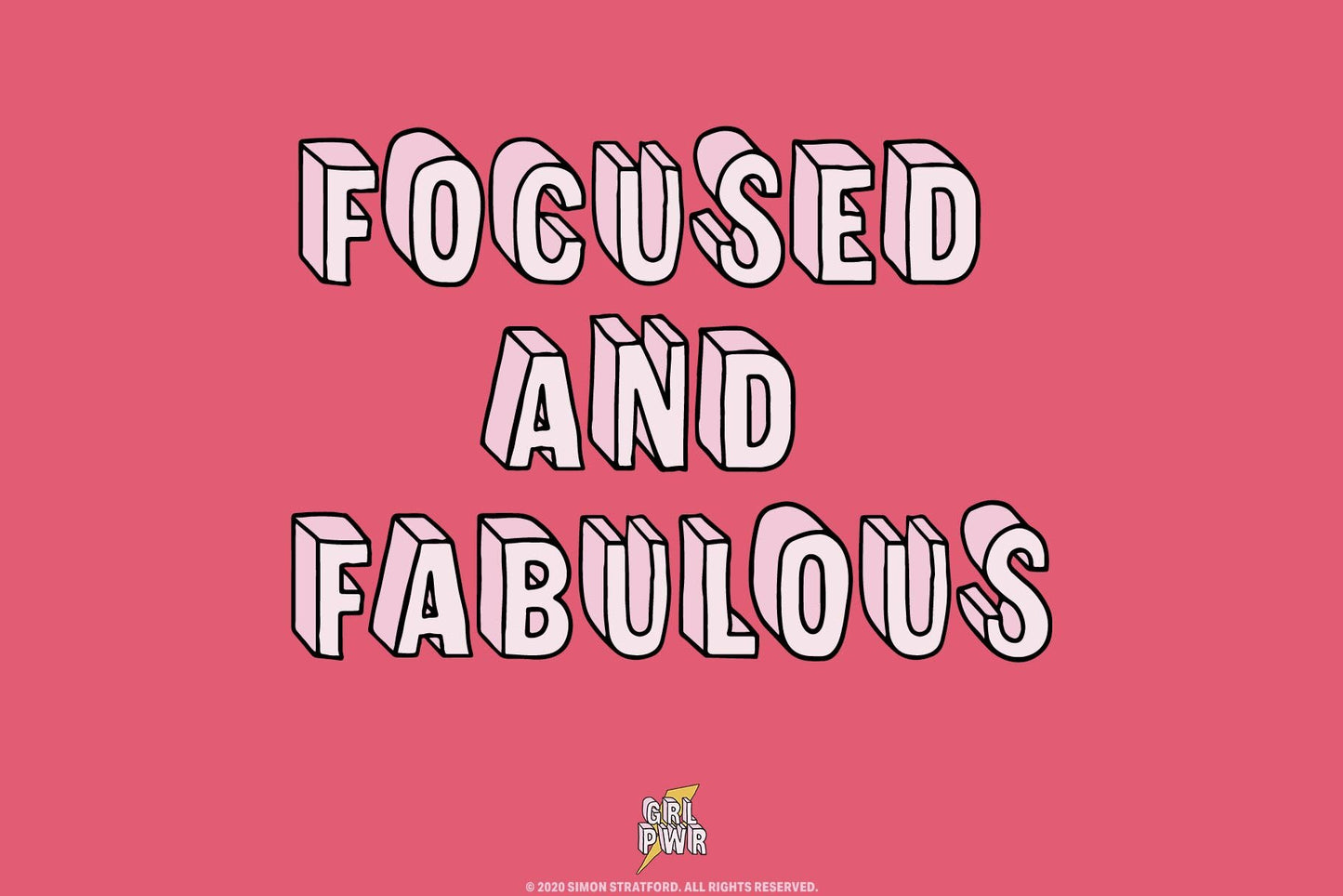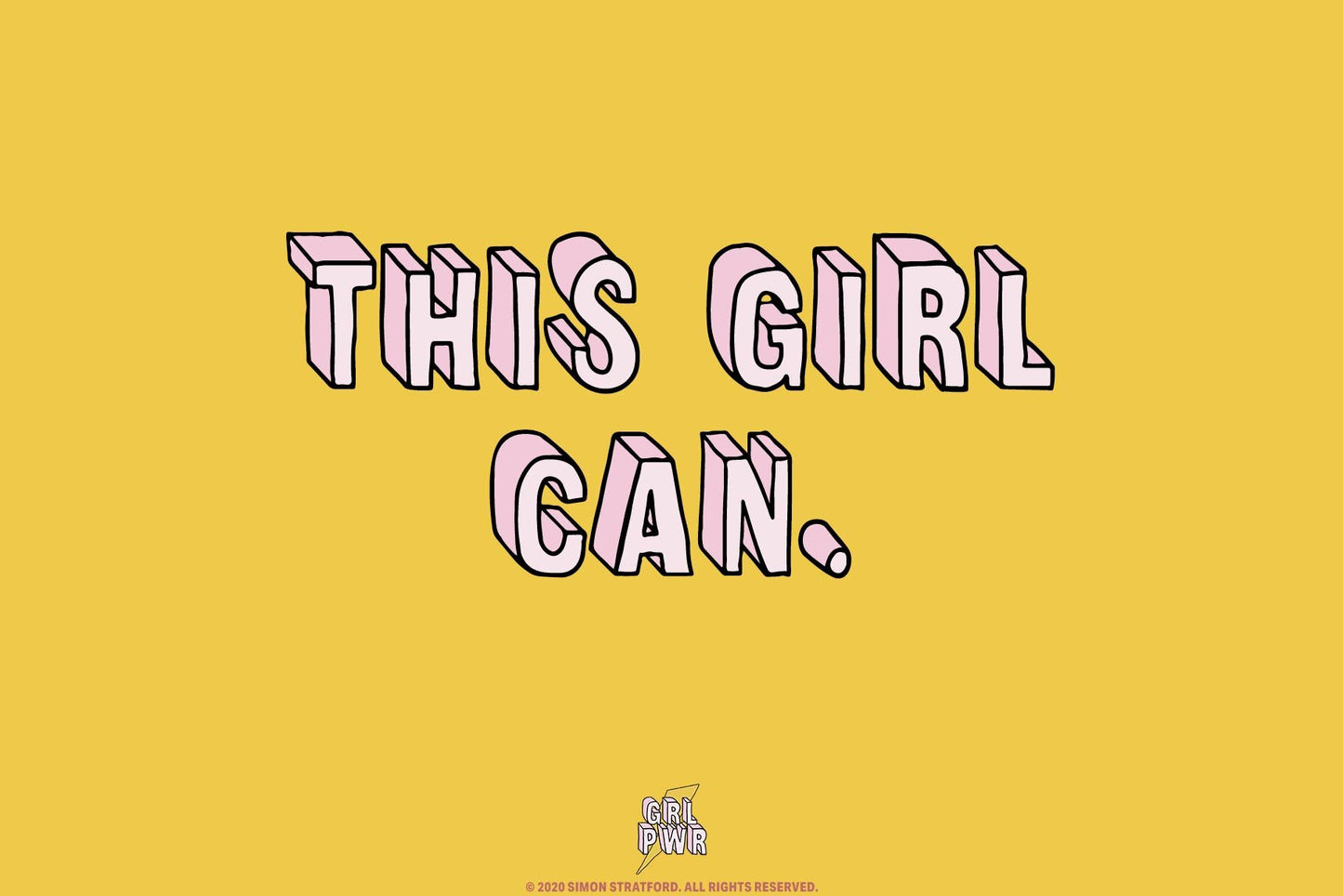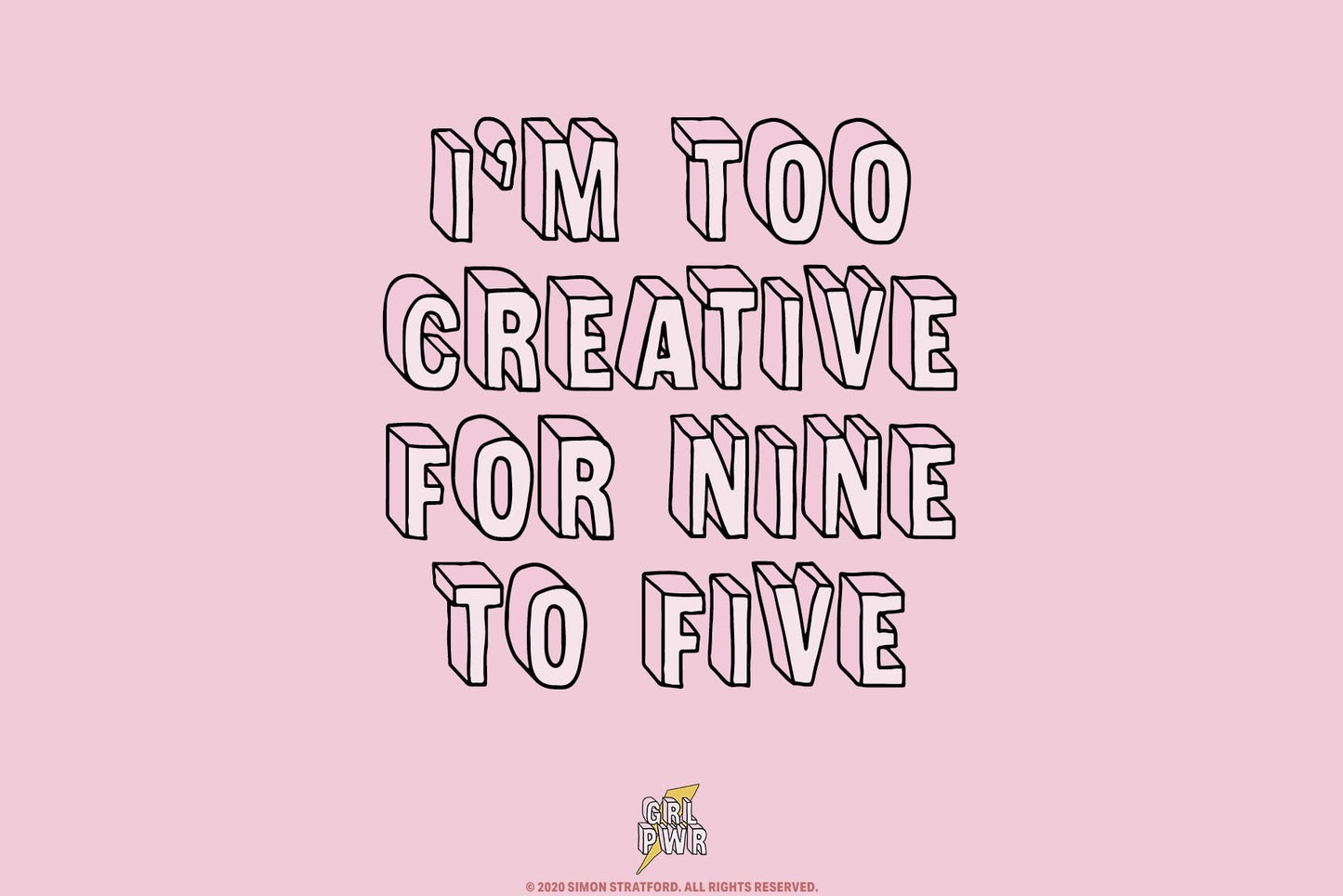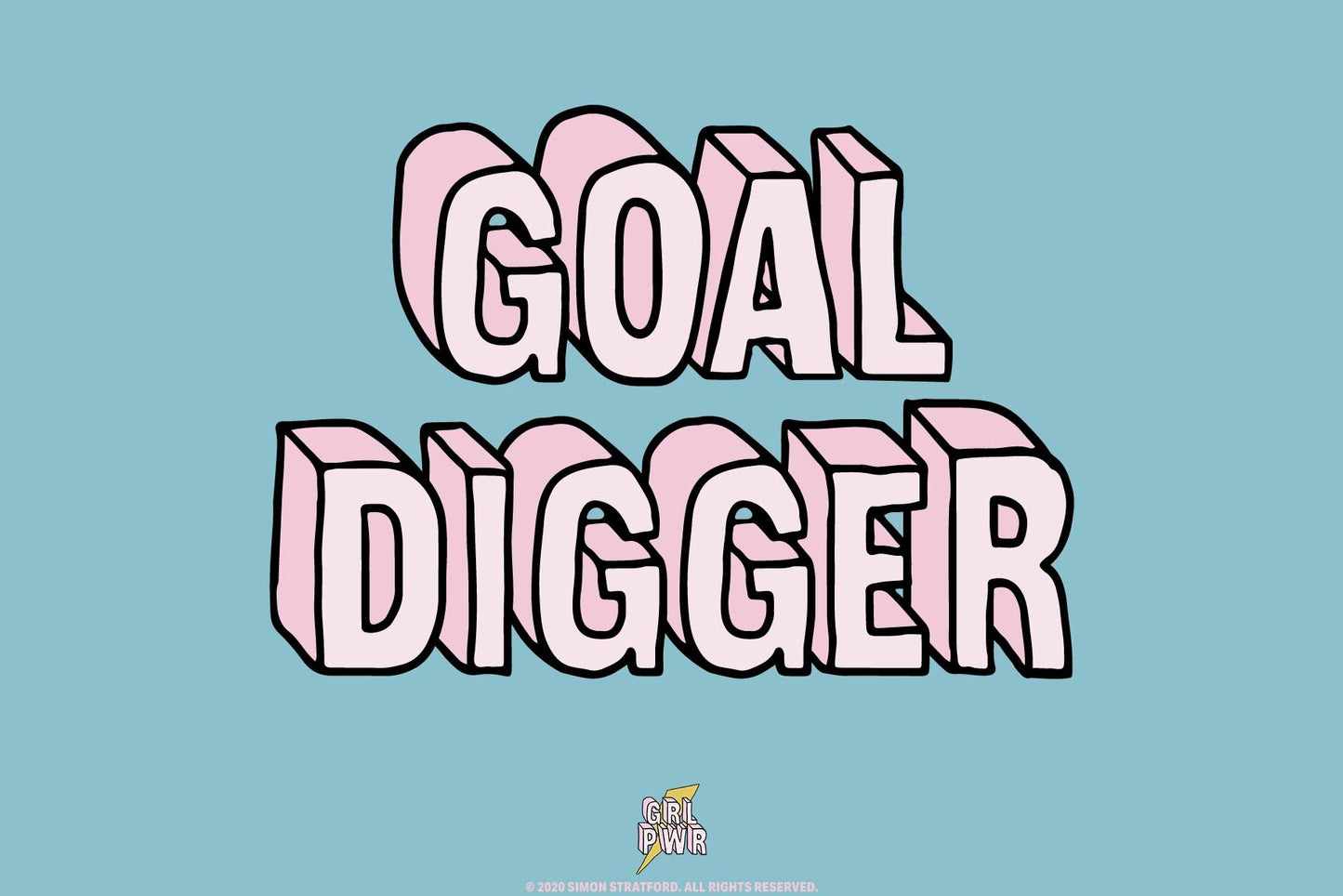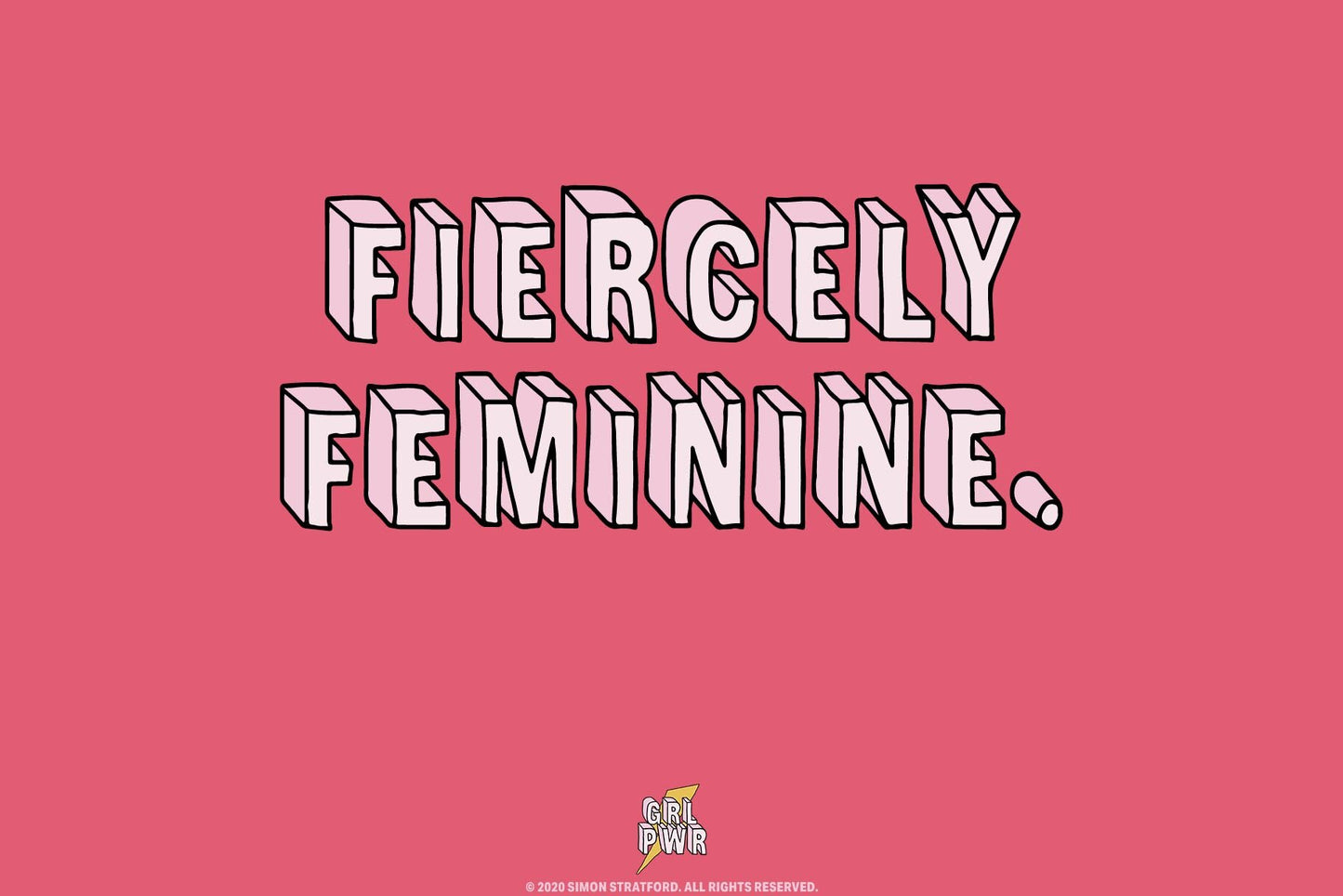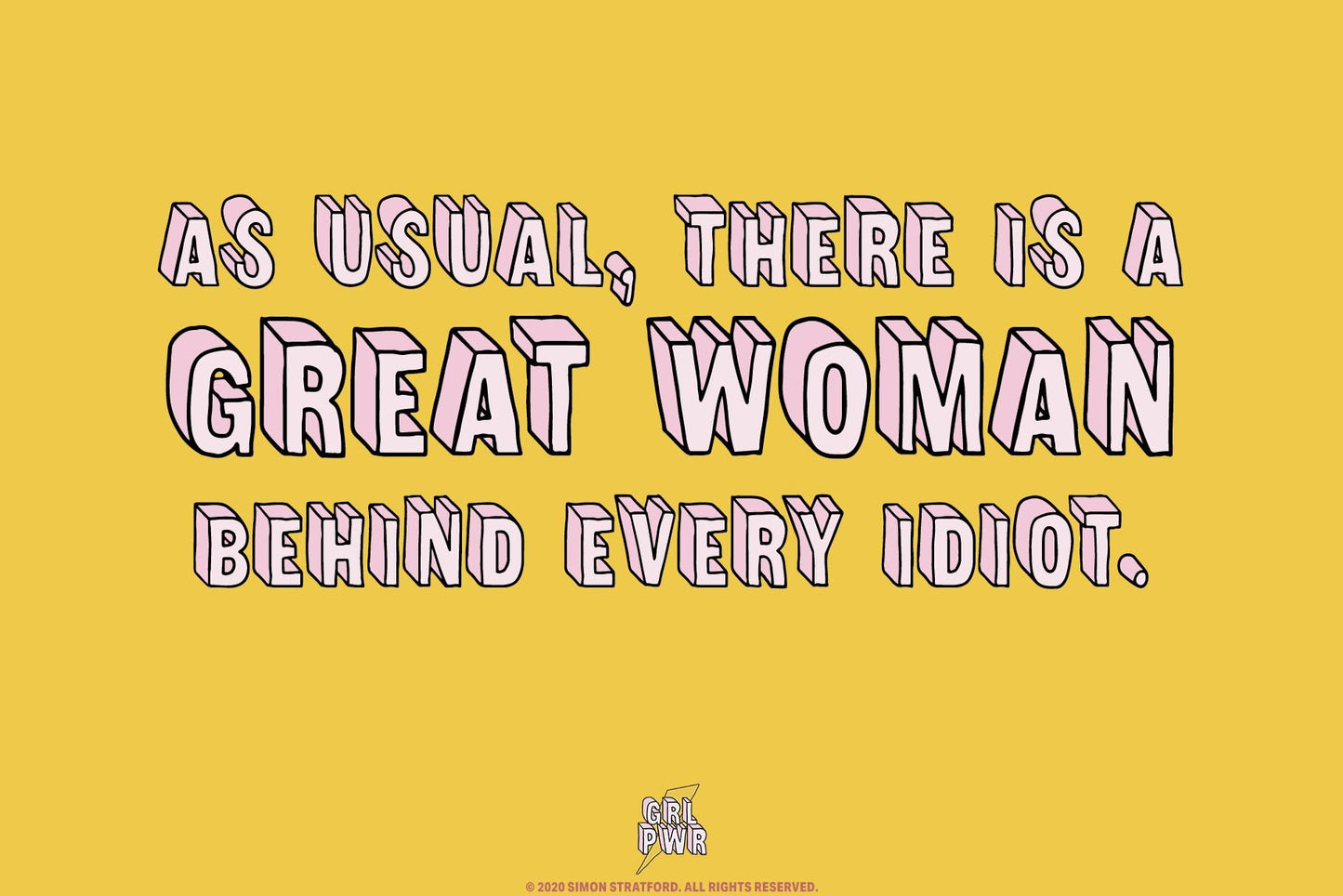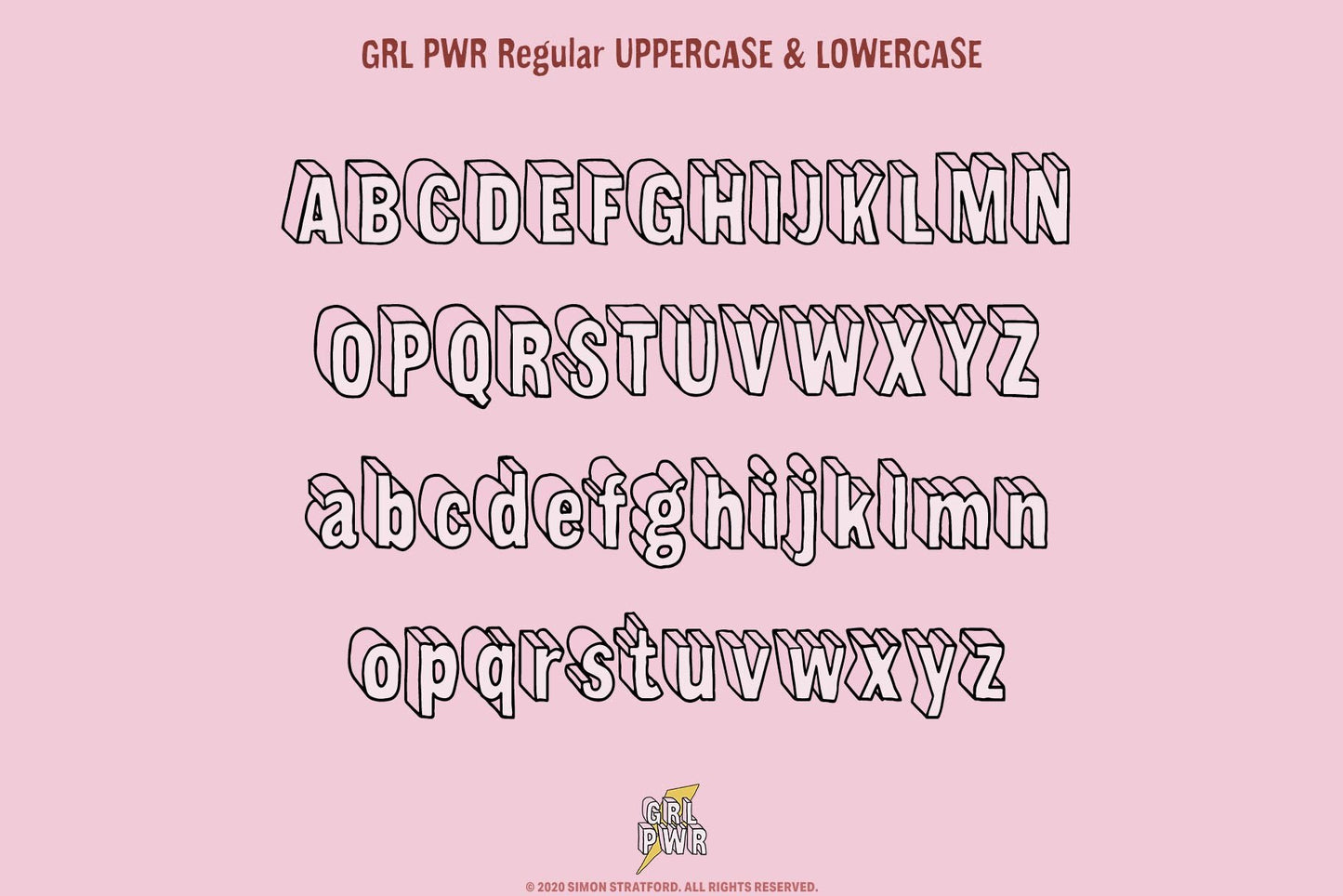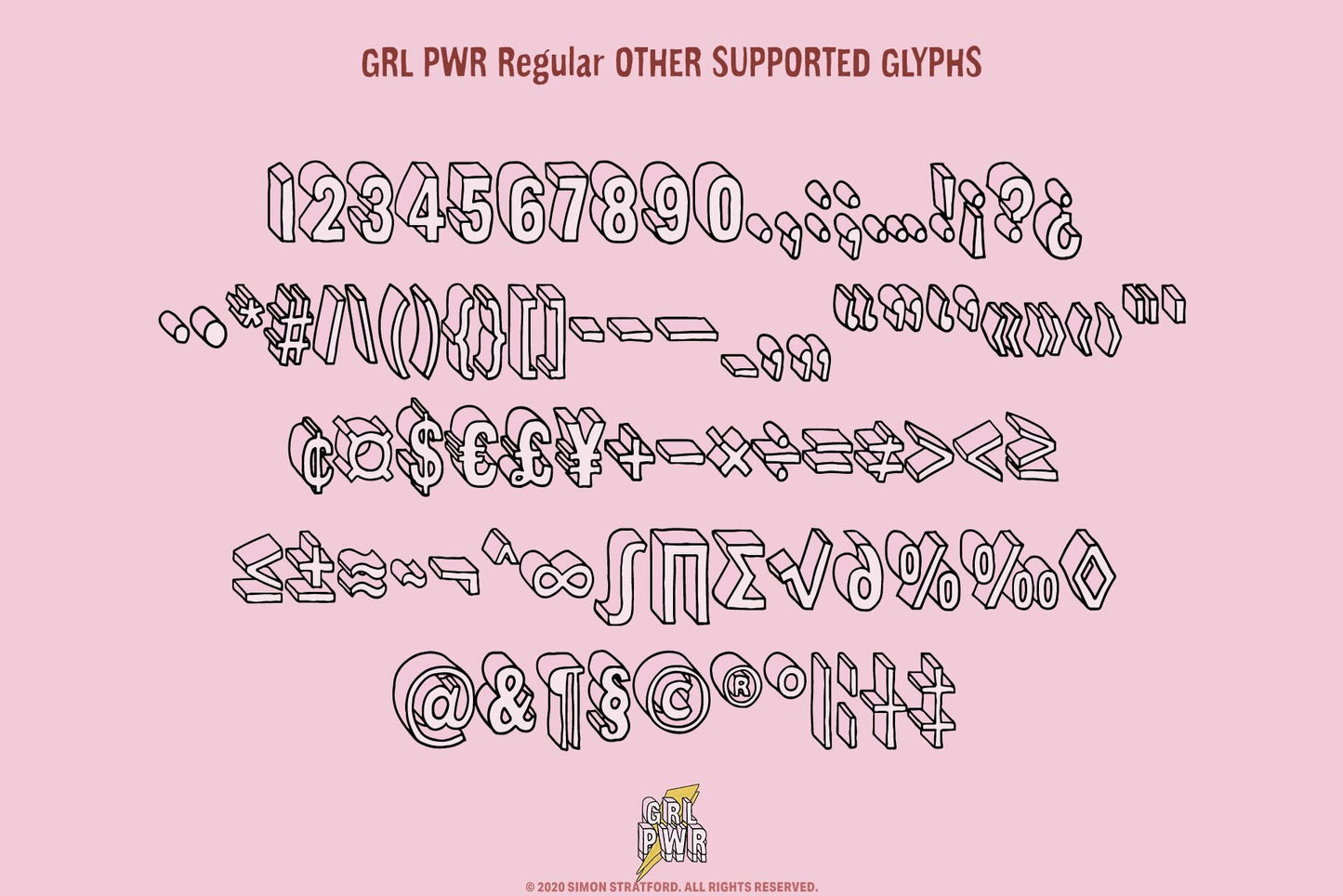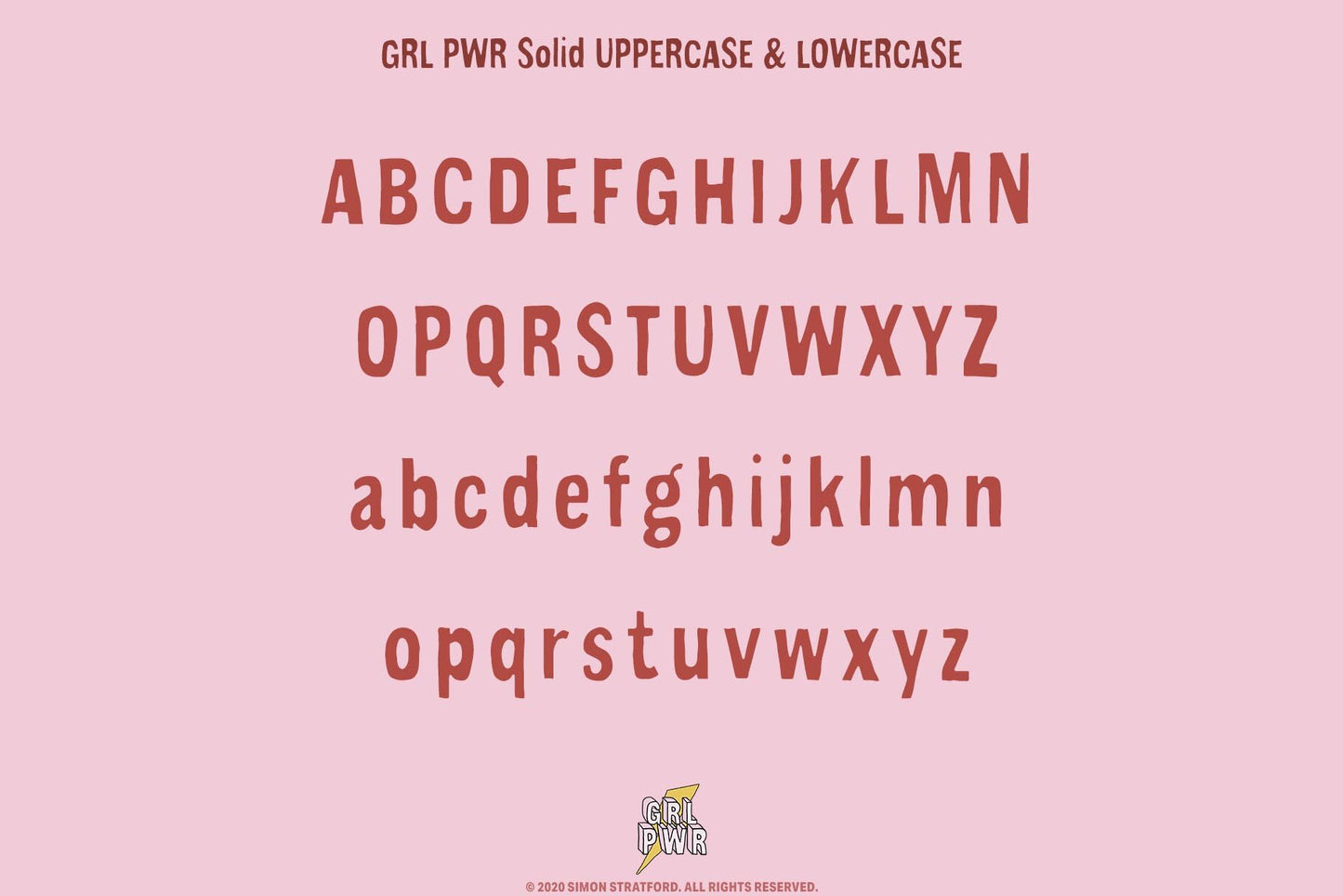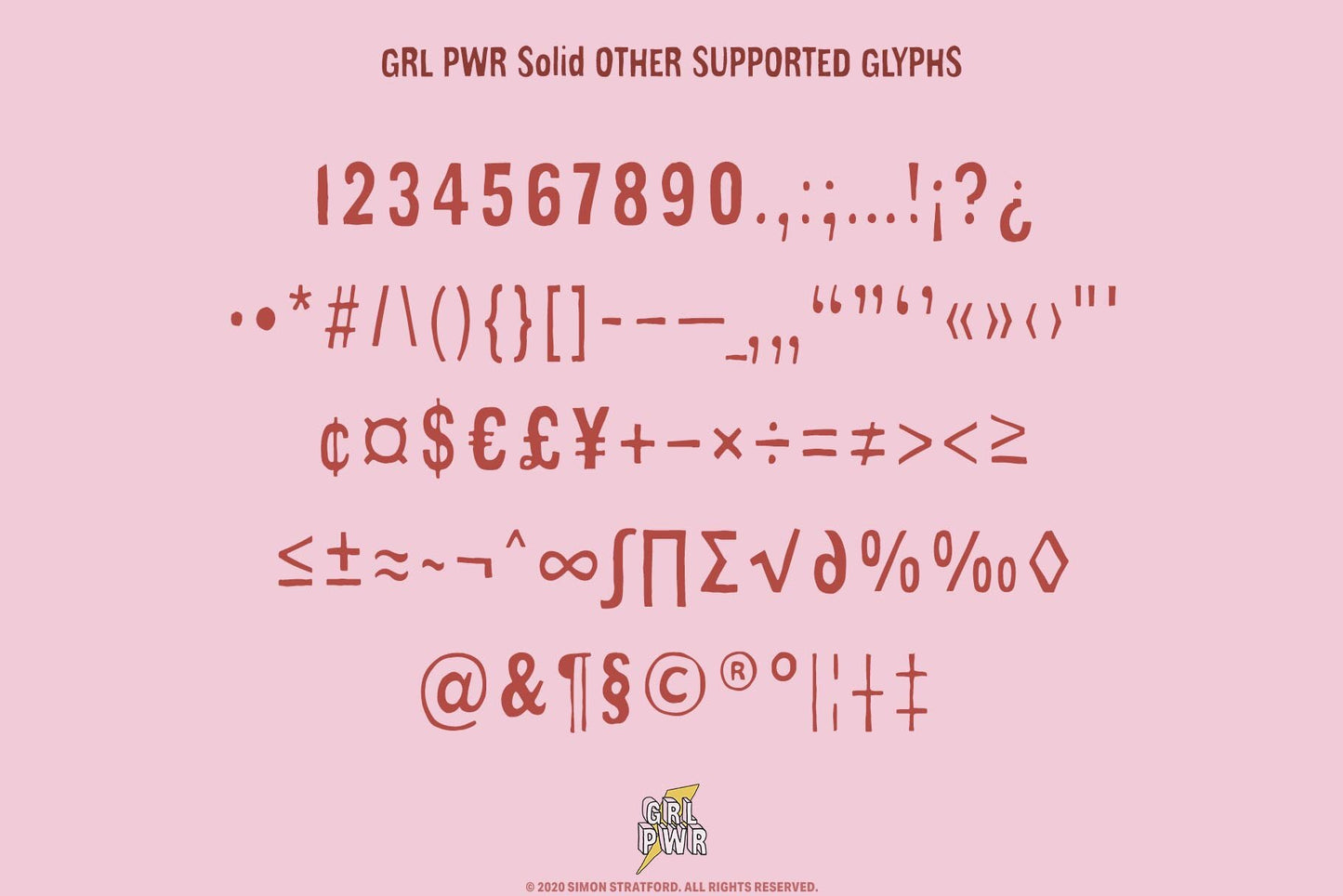
GRL PWR
About GRL PWR
GRL PWR is a stylish and bold typeface, meticulously crafted with a hand-drawn 3D or extruded appearance. It also comes in the OpenType-SVG colour font format.
This innovative font format allows for vibrant colours, ensuring that you can fully enjoy the pink shades with a black outline as originally intended.
With its whimsical yet bold outlines, GRL PWR exudes a cute and casual charm, making it a versatile choice for a wide range of design applications.
When used in larger sizes, the intricate details in each letter truly shine, making GRL PWR a perfect fit for magazine headlines, posters, social media posts, and even unconventional packaging concepts.
GRL PWR offers two distinctive styles: 3D and solid, both of which complement each other beautifully.
If GRL PWR were a celebrity
Just as Taylor Swift is known for her powerful lyrics and songs that inspire and empower people, the GRL PWR font would be recognized for its bold and impactful design, capable of conveying a message of female empowerment and resilience.